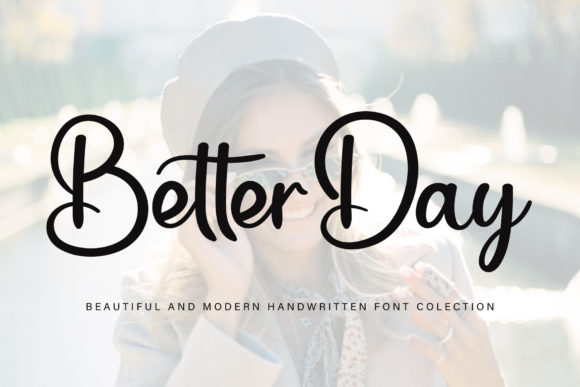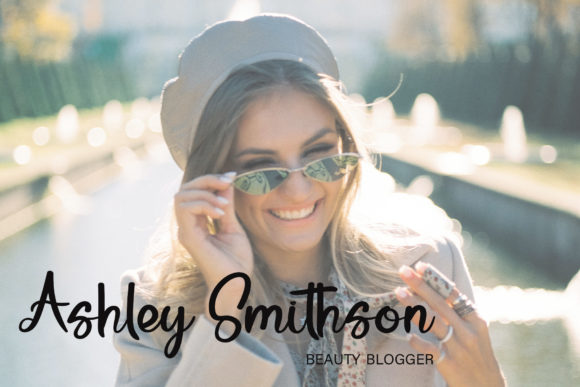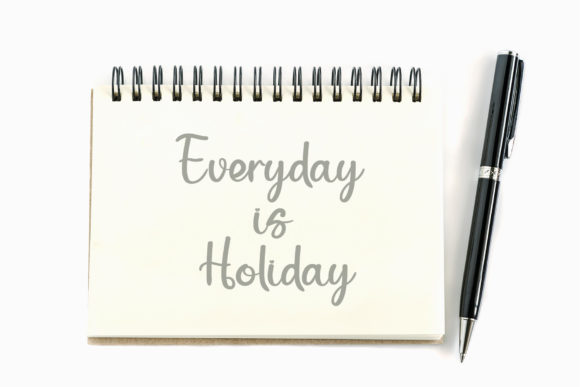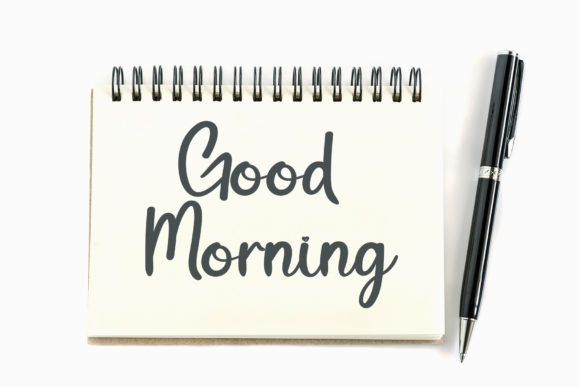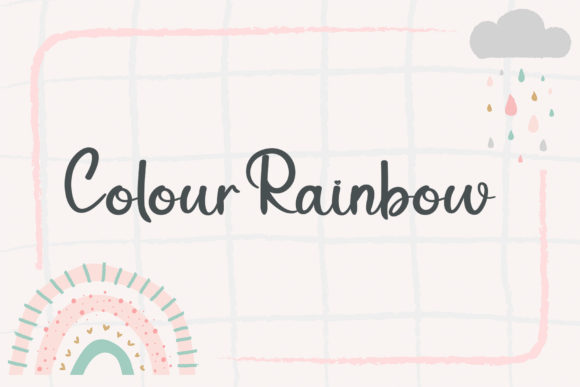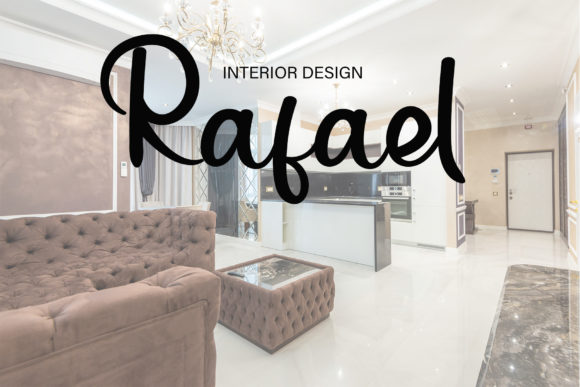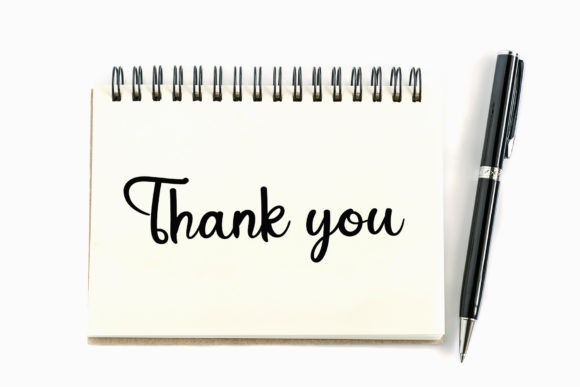
Better Day Font
About Better Day Font
“Better Day” is a delicate, elegant, and flowing handwritten font designed to bring a sense of beauty and balance to your creative projects. With its well-crafted characters, this font is versatile and complements a wide range of designs, adding a touch of sophistication to your work.
The delicate and elegant nature of “Better Day” makes it a perfect choice for various applications. Imagine this font gracing wedding invitations, where its flowing script adds a romantic and timeless touch, enhancing the overall aesthetic of the special day.
For branding projects, “Better Day” becomes a refined choice, contributing to a visual identity that exudes elegance. The well-balanced characters ensure that your brand communicates a sense of sophistication and creativity, leaving a lasting impression on your audience.
In diverse design contexts, from social media posts to product packaging, “Better Day” serves as a versatile tool. Its delicate and flowing script can breathe life into your creative ideas, making them visually captivating and appealing.
As you incorporate “Better Day” into your projects, observe how its beautiful and well-balanced characters bring a sense of life and elegance. Whether you’re working on invitations, quotes, or any design that requires a delicate touch, this font stands as a refined choice to make your ideas come alive with grace and style.